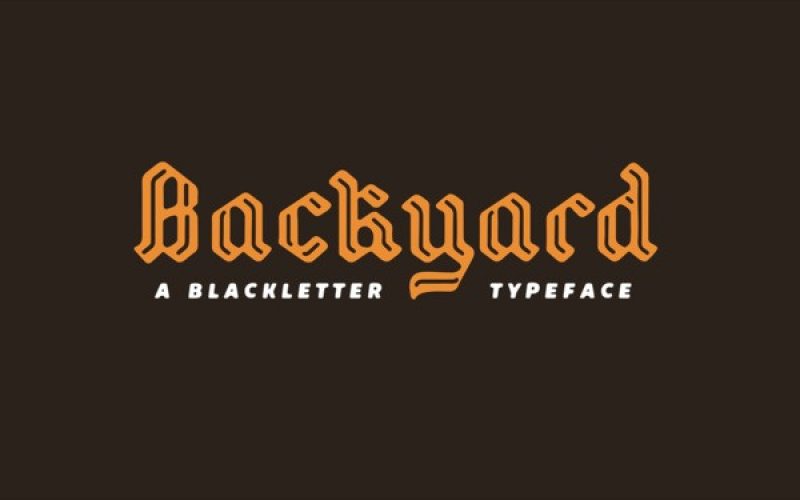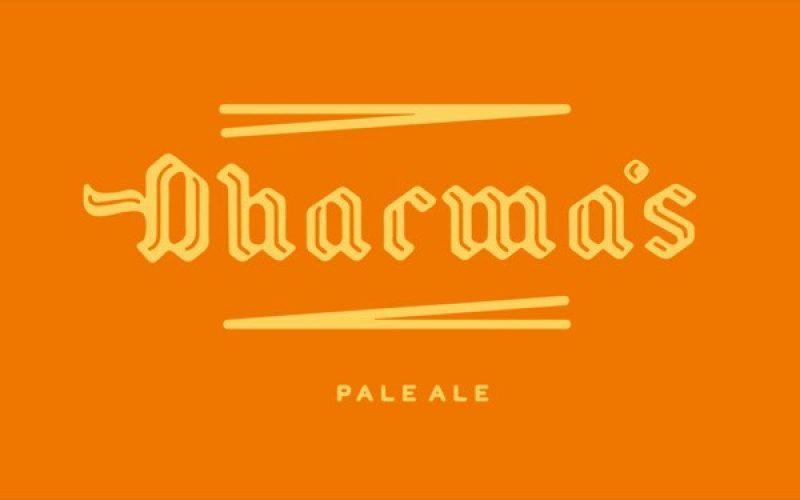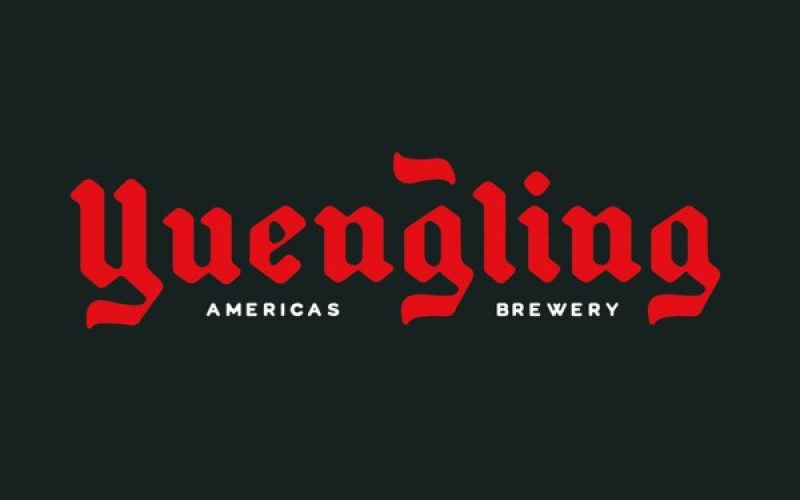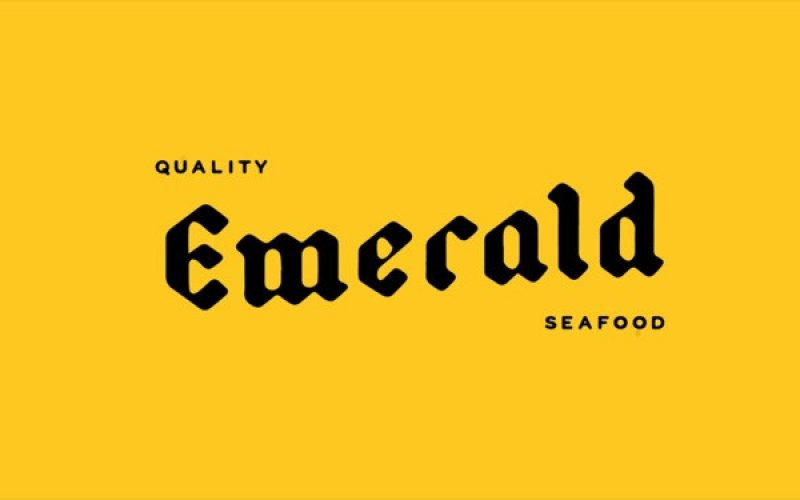
Backyard Blackletter Font
Backyard is a blackletter type. It’s classic but rounded, which gives it a simple and clean appearance. It comes in four varieties; the Regular style, the Black style and each of those styles as Italic.
Designer Name: | mawns |
Classification: | Blackletter |